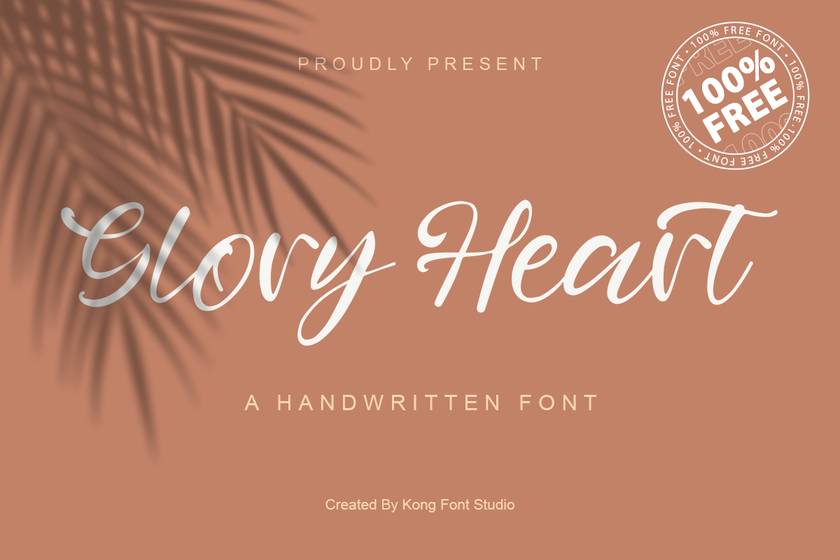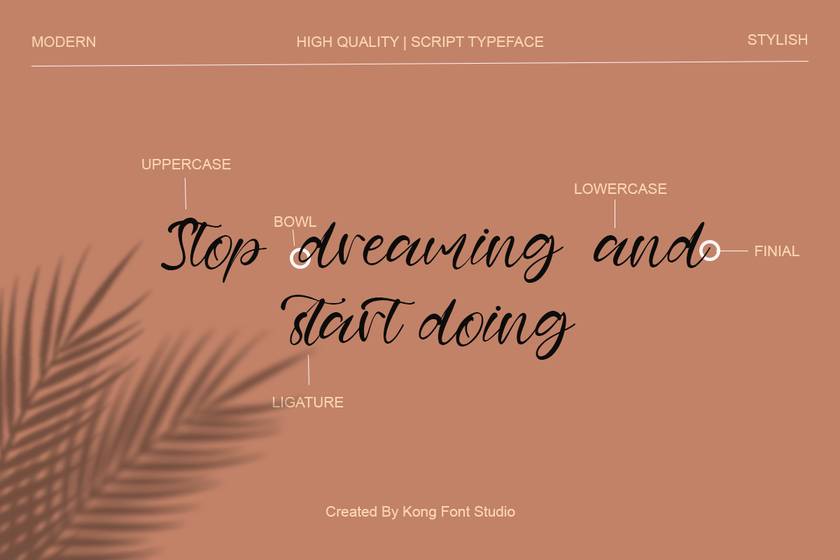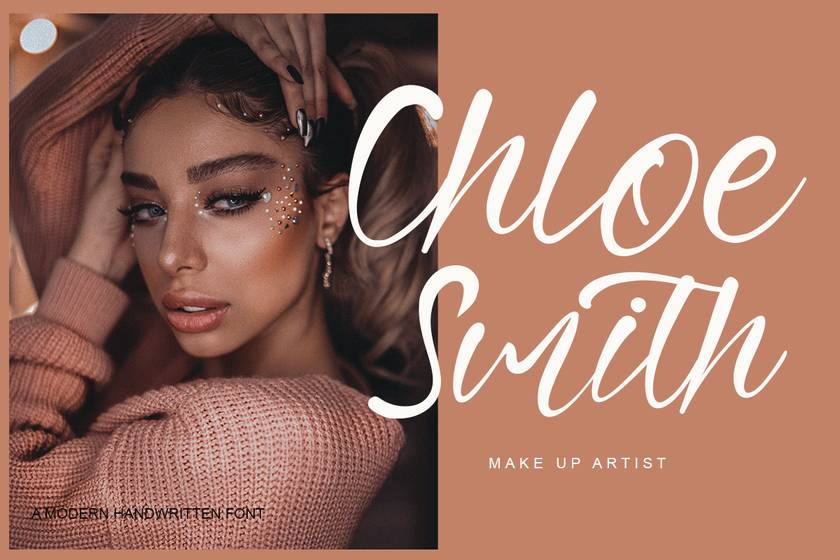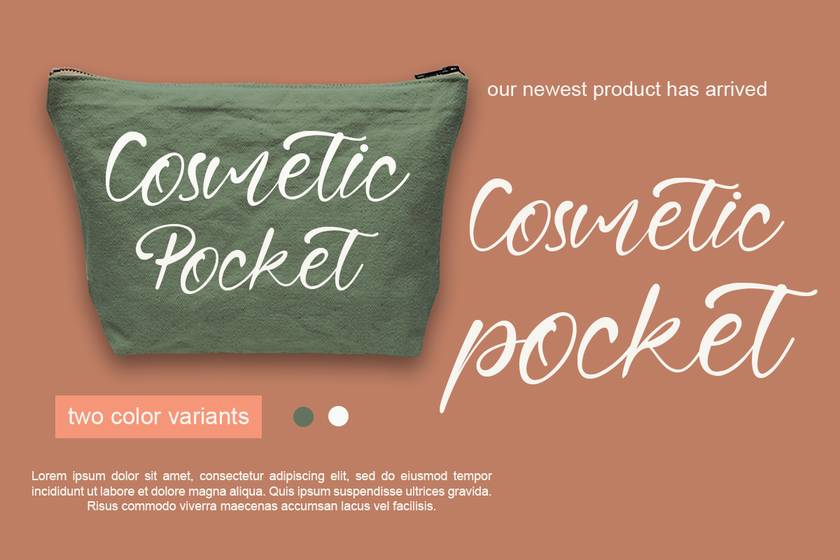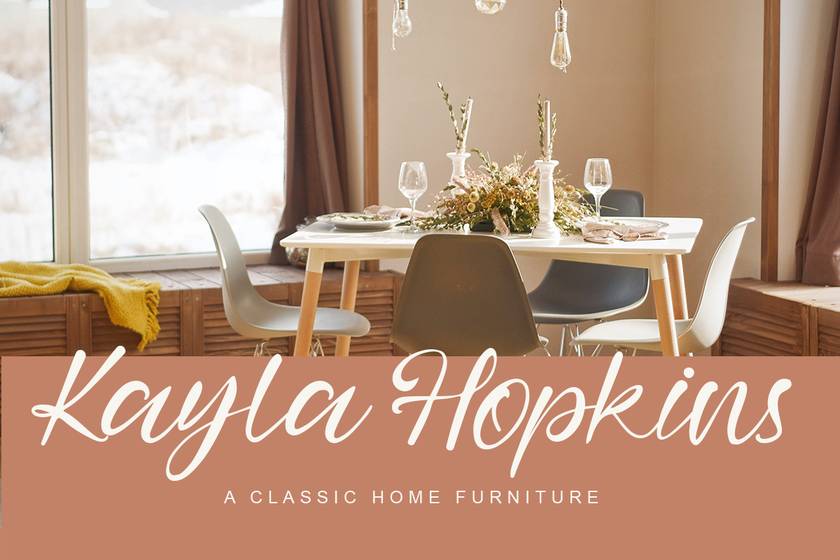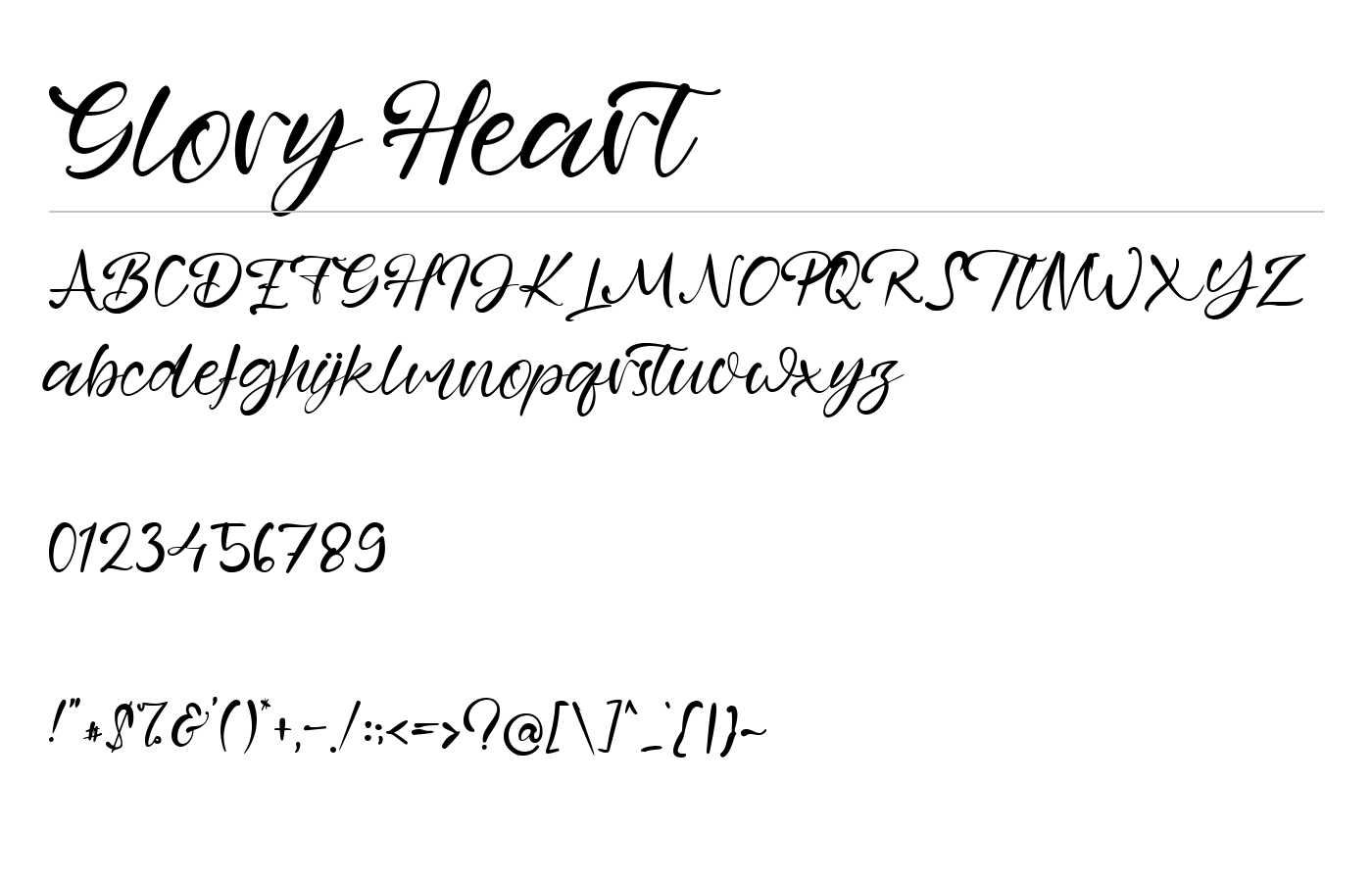
Glory Heart is an elegant, cursive script font that features smooth, flowing strokes with a lively, handwritten feel. Its moderate contrast and delicate flourishes give it a sophisticated yet approachable personality, making it ideal for invitations, branding, and feminine or romantic design projects. This font works beautifully in headlines or decorative text where a touch of charm and handwritten warmth is desired.
Glory Heart Font
About Glory Heart Font